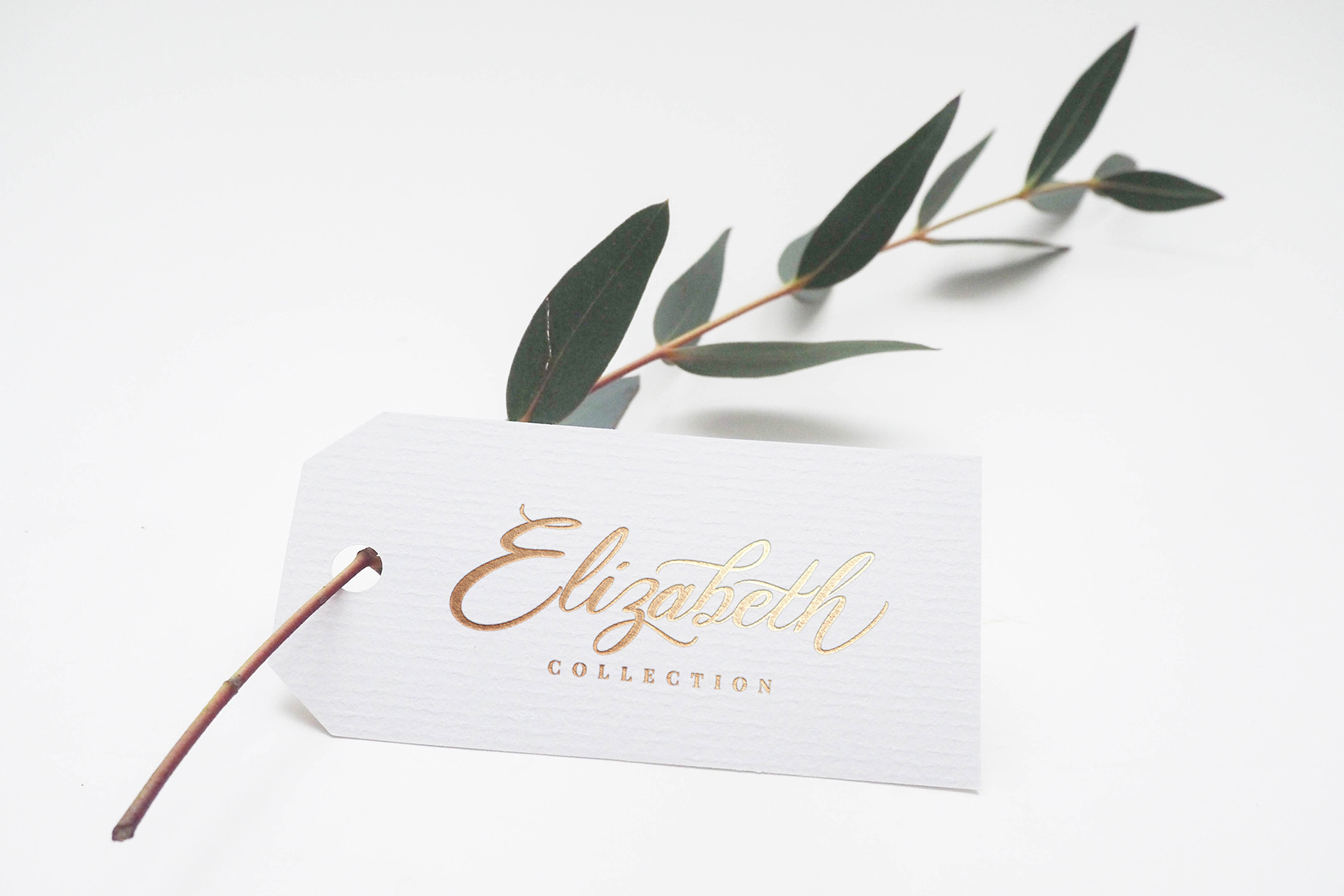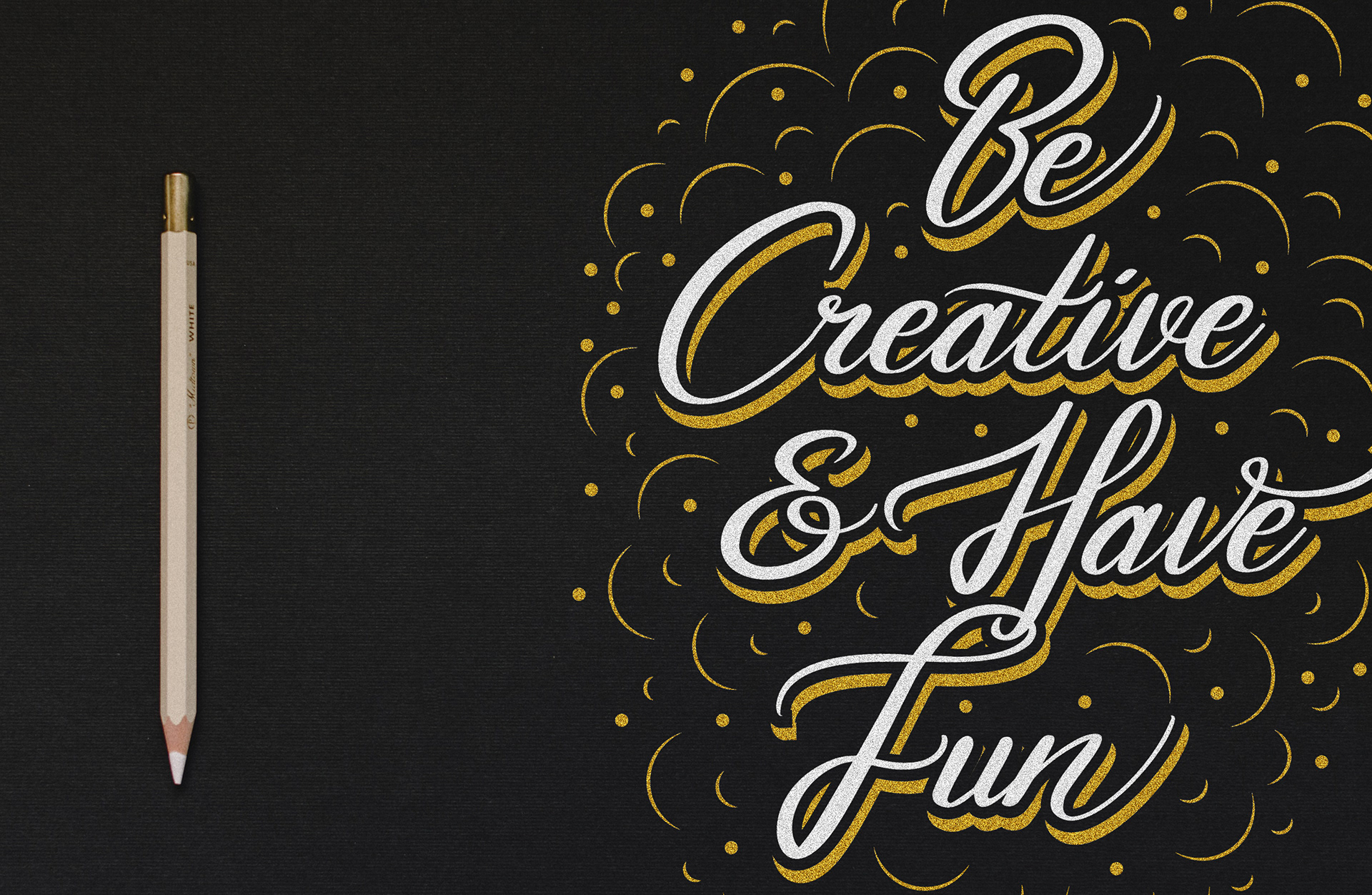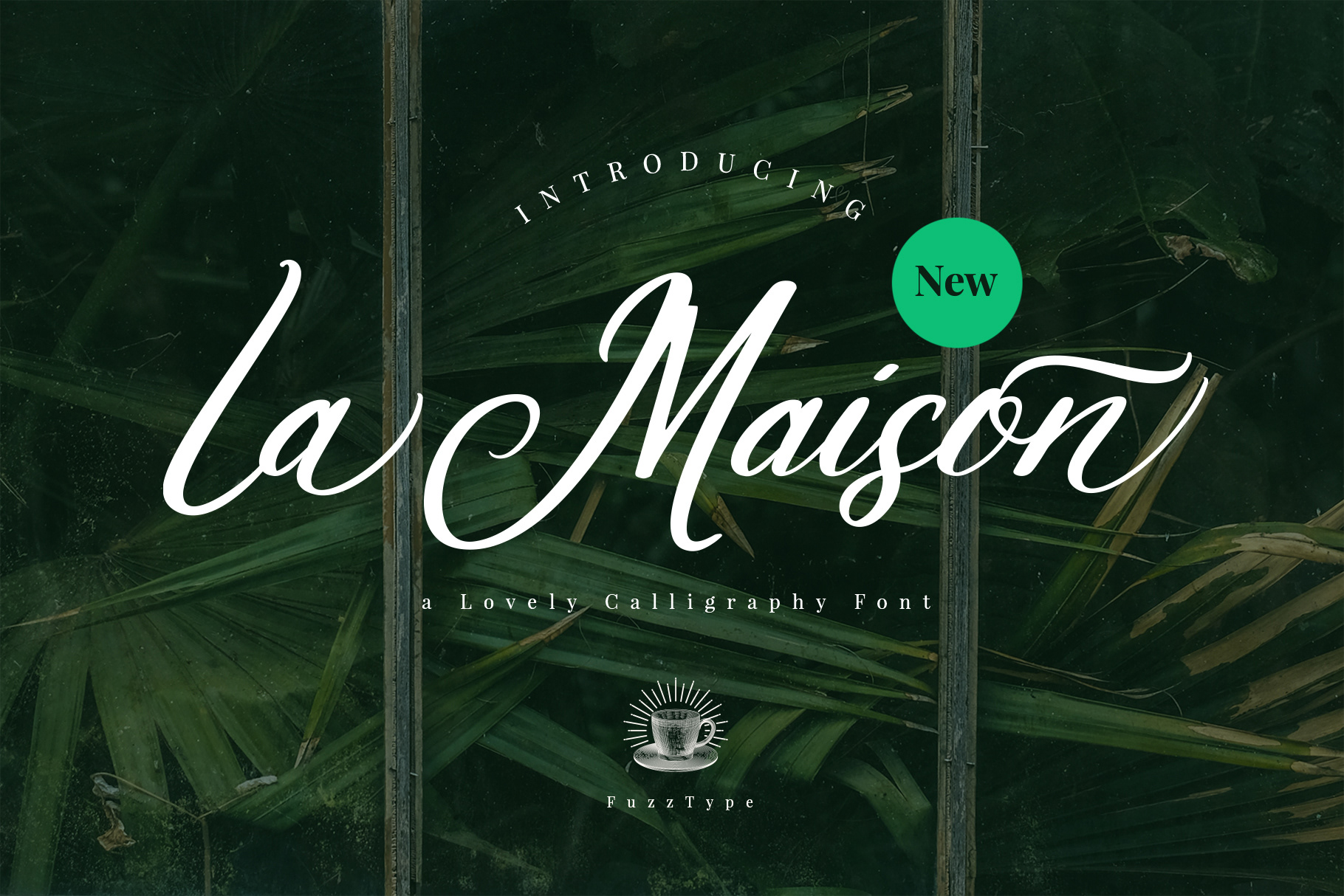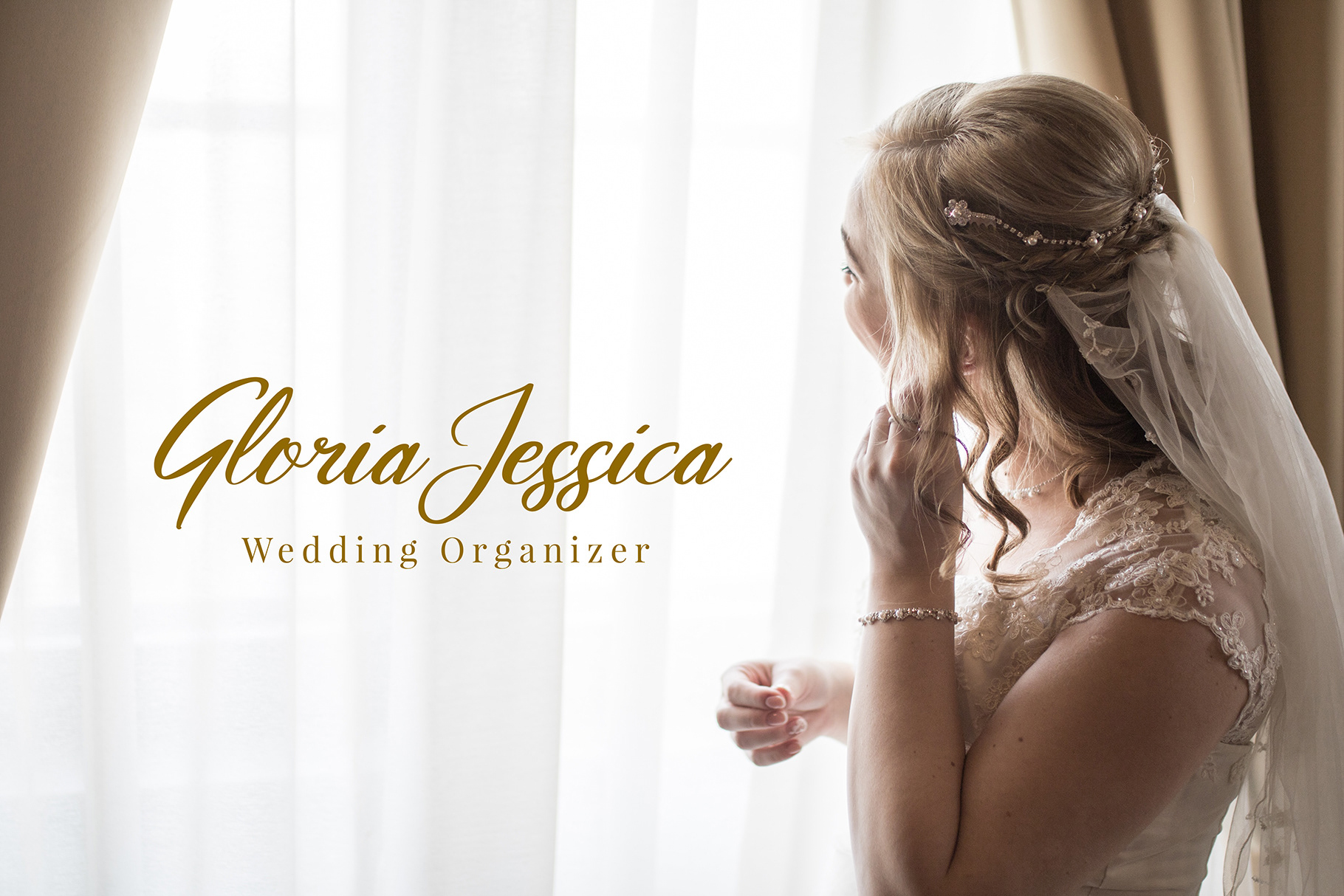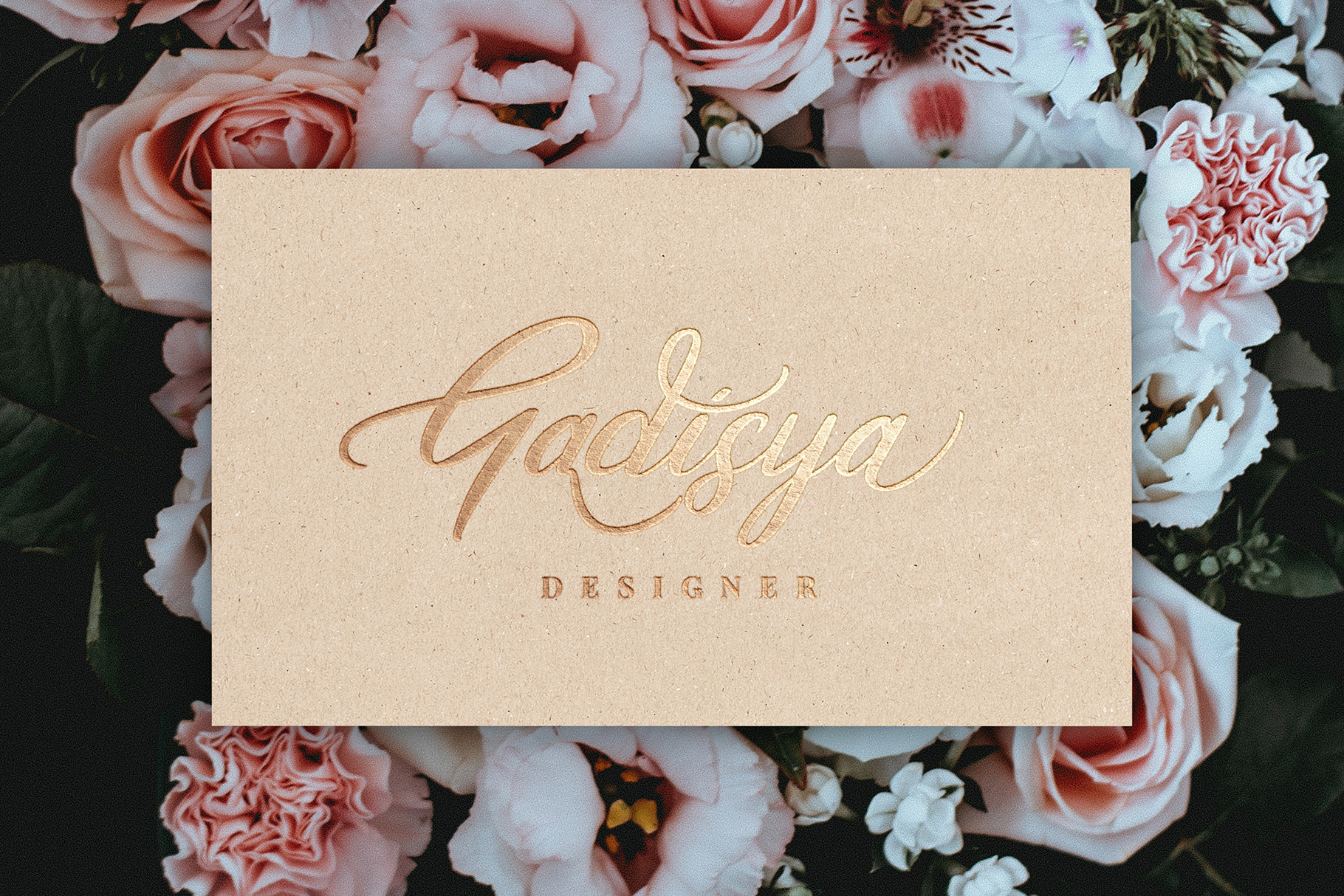
La Maison Script is a lovely calligraphy script font, it shows elegant, feminine, crafty things. It contains more than 400 glyphs, including stylistic alternates, swash, and ligatures. You can use it on any kind of media such as flyer, wedding invitation, label, packaging, logo, book, blogging etc.
- Uppercase,lowercase,numeral,punctuation & Symbol
- Multilingual support
- Stylistic alternates
- Some Ligatures